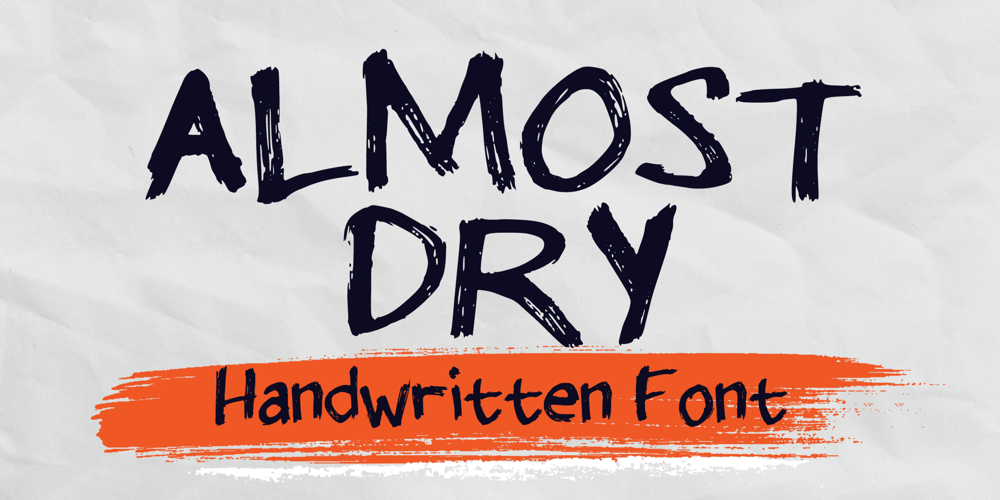
Almost Dry Font Family was designed by Gabriel Valentinus and published by Mvmet. Almost Dry contains 1 styles and family package options. Almost Dry is a playful and natural brush stroke font. It will elevate a wide range of design projects to the highest level. You can use this font for many design ideas such as stickers, t-shirt designs, amazing logo designs, magazine or book covers, comics, cartoon drawings, and much more.